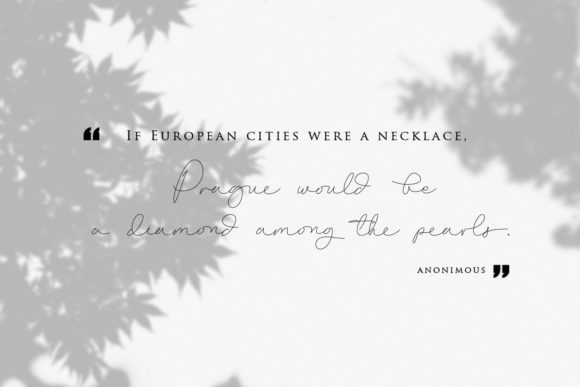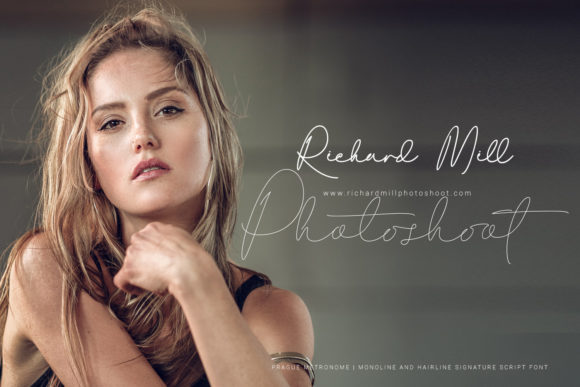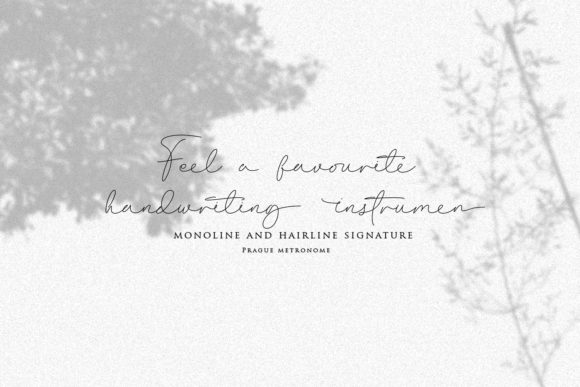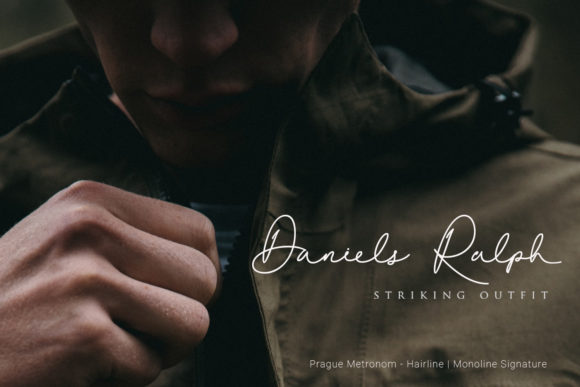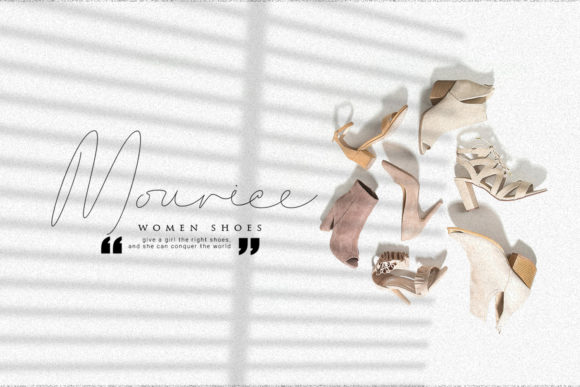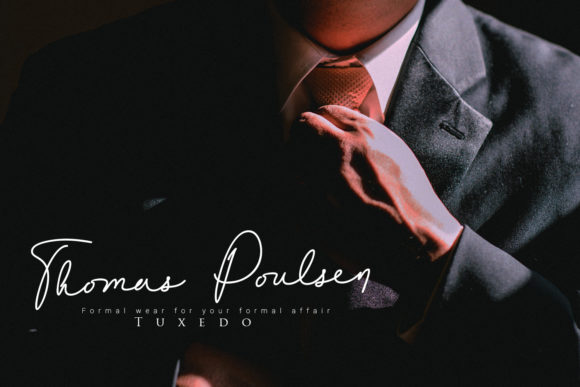
Introduction to Prague Metronome Font Font
Fonts play a crucial role in design, and the Prague Metronome Font font is a typeface that brings both character and versatility to any project. Whether you’re working on a branding project, a website, or a print design, the Prague Metronome Font font offers a unique style that can elevate your work.
Prague Metronome pays tribute to the stunning city of Prague and its rich history.
Get inspired by this unique script .
Key Features of Prague Metronome Font Font
Why Choose Prague Metronome Font Font?
The Prague Metronome Font font is more than just a typeface – it’s a design tool that helps you communicate your message with style and clarity. Its unique character set and versatile design make it suitable for a wide range of applications, from elegant invitations to bold headlines.
With its carefully crafted letterforms and balanced proportions, the Prague Metronome Font font ensures readability and visual appeal across all mediums.
What makes Prague Metronome Font font special?
The Prague Metronome Font font stands out with its unique design, exceptional readability, and versatility across various design applications.